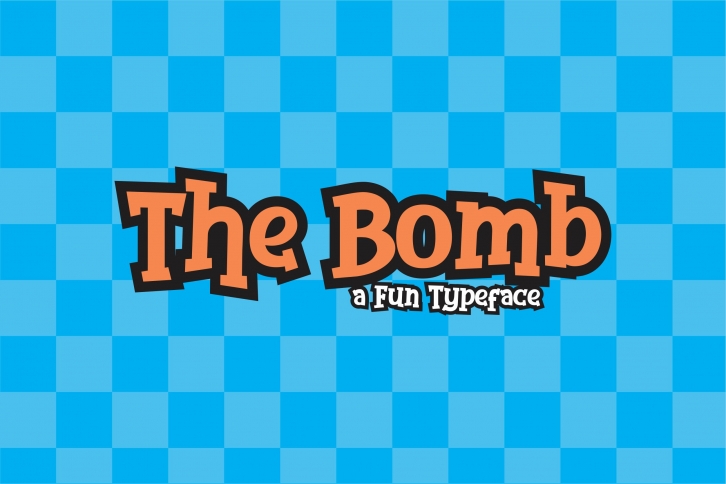
The Bomb is a gorgeous font that was realeased on July 1, 2020. The font can be used in many style contexts and design environments. Perfect for invitations, magazines, websites, logos, and more! It was designed by Dicky Kribo and the file size is 15.21 MB. Thanks for checking out this font!